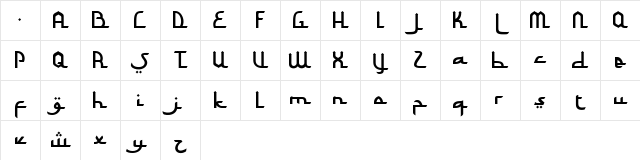
Abizhar Regular Free Font
Abizhar Regular
Designer: Flawless And Co
Design Context for Abizhar
Abizhar is a composed and adaptable typeface that performs quietly and consistently across a wide range of design contexts.
Pro Tip: Use Abizhar in both headline and body roles to test its range before committing to a single application.